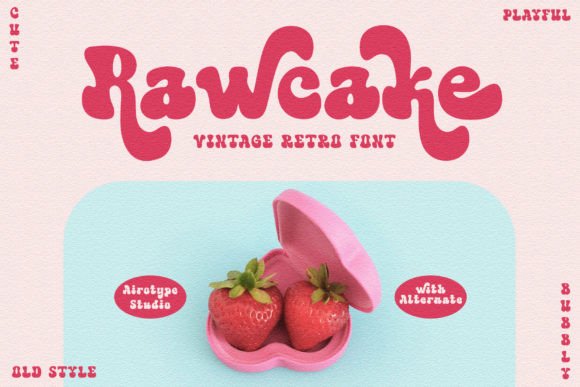
Are you looking for the perfect font to add a boho touch to your project? Look no further than Rawcake Font, the best font for boho enthusiasts! Created by airotype, Rawcake Font is a bubbly and fun vintage font that exudes retro vibes, perfect for any project that needs a touch of whimsy.
Rawcake Font is part of the display font family, making it an excellent choice for anything from logos to crafting to wedding invitations. Whether you're looking to brand your business with a unique font, create stickers or sublimation designs, or add quotes to your social media posts, Rawcake Font has got you covered.
But what really sets Rawcake Font apart is its PUA encoding. This means that accessing all of the glyphs and swashes is a breeze, allowing you to easily add flourishes and decorative touches to your designs.
So why choose Rawcake Font over other fonts in the collection? With its bubbly personality and vintage flair, Rawcake Font is sure to stand out and leave a lasting impression on your audience. Whether you're designing for a boho wedding, creating a whimsical brand, or adding a touch of playfulness to your project, Rawcake Font is the perfect choice.